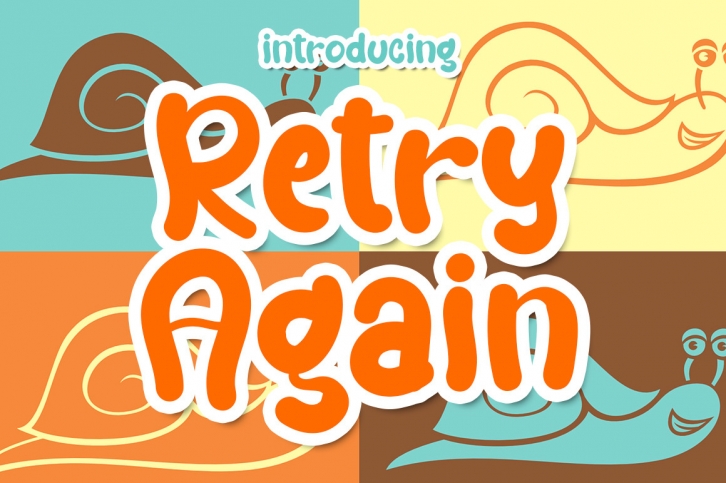
Retry Again is a beautiful and sweet display font. It is fresh, clean, and elegant. This font will look amazing in a great amount of projects, both formal and informal. It will add an incredibly joyful touch to your designs.